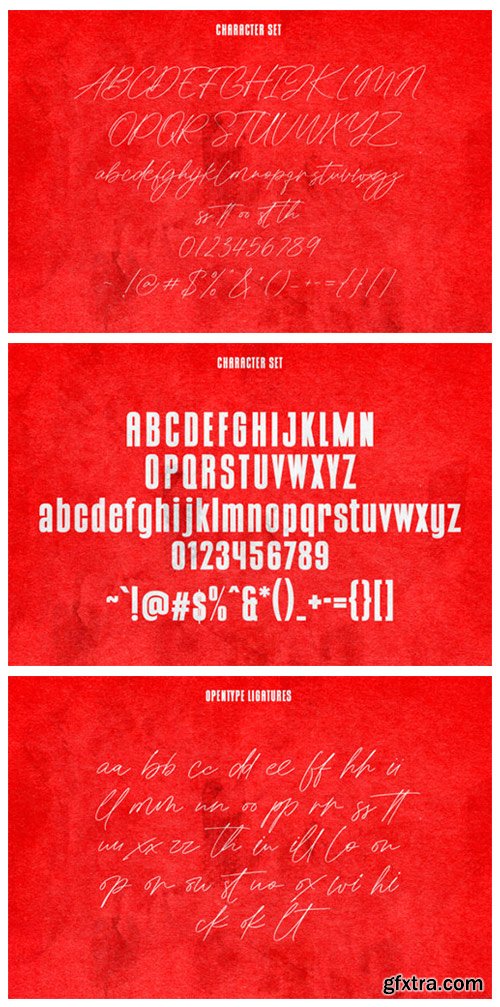
Offenders Club Duo Font
Offenders Club is a signature script and sans serif duo font. The two fonts go incredibly well together, as well as apart. This font is good for logo design, Social media, Movie Titles, Books Titles, short text even long text. Make stunning work with Offenders Club font!
Svarga Font
Svarga is a classy and elegant serif font. It is both modern and nostalgic, and it works great for logos, magazines, and social media. This font was created for designers who need a touch of elegance, style, class, and modernity in their designs.
Taillor Amillate Font
Taillor Amillate is a beautiful script font, suitable for any projects such as logos, branding projects, homeware designs, product packaging, mugs, quotes, posters, shopping bags, t-shirts, book covers, name cards, invitation cards, greeting cards, labels, photography, watermark, special events, and all your other lovely projects that need a beautiful script taste. This font is PUA encoded, which means you can access all of the glyphs and swashes with ease!
Lostya Font
Lostya is a modern serif font that embodies elegance and charm in every character. It is perfect for luxury logos, branding, classy editorial designs, women’s magazines, cosmetic brand, promotional designs, the fashion industry, and more.
Joan Hull Font
Joan Hull is a modern and exquisite script font. A collection of letters and numbers suitable for your projects. Use it for logotypes, branding designs, logo designs, digital lettering arts, t-shirt/apparel, posters, magazines, signs, advertising, and so much more.
Chameleon Font
Chameleon is a stylish and fine serif font. It is PUA encoded which means you can access all of the glyphs and swashes with ease! Add it confidently to your projects, and you will love the results.
Staryssa Font
Staryssa is a stunning calligraphy script font accented with beautiful stars. It was designed with printing and sublimation in mind and will look great with foiling on greeting cards, stickers, and anything you can imagine. This font is also packed with fantastic glyphs that will add even more wow factor to your designs. This font is PUA encoded, which means you can access all of the glyphs and swashes with ease!
Cute Crafts Font
Cute Crafts is a fun duo font (decorative and sans serif) inspired by colorful handcrafts style. The font works wonderfully for fashion, gifts, products packaging, signage, etc. Cute Crafts has modern and playful characters that will suit many industries and categories related to crafting, family, kids, etc.
Morgana Font
Morgana is a unique, modern & classic serif font that is a mix of old and new. Its soft curves mixed with high contrast glyphs lend themselves to both feminine and masculine qualities. Equipped with epic ligatures, this font is great in layout design for quotes or body copy. It is also great for logo designs.
Over Thinking Font
Over Thinking is a simple handwritten font with stunning characters. This font is crafted carefully in every single scratch, created to look as close to natural handwriting as possible so that it can create the perfect combination on each glyph. This awesome script is for anyone who needs elegance and style for their designs. Over Thinking Font will be awesome for professional photography, wedding, engagement, branding, invitations, florist, hairstylist, makeup artist, event organizer, movie, music, festival, promotions, social media, etc.
Skull Eyes Font
Skull Eyes is a modern display font. This typeset is perfect for brand logo, invitations, greeting card, or even any kind of project. With multilingual features and style variations, this typeface would further enhance the aesthetical aspect of your work.
Gladiator Arena Font
Gladiator Arena is a cool serif font with textured effects, inspired by the ancient roman fighting: gladiator. It has a bold and sharp edge making it perfect for titles on books and other written works, markings on tourist attractions, and those requiring a different serif style.
White Black Font
White Black is a doodle sans serif font with simplicity and a unique style. It is great for business cards, logos, product packaging, posters, t-shirt, and many other projects that require a fun and cute style. White Back will be awesome for many industries including fashion, food, games, kids, school, and more!
Surrendere Font
Surrendere is a modern and cool slab serif font. This typeset is perfect for brand logo, invitations, greeting card, or any kind of project. With multilingual features and style variations, this typeface would further enhance the aesthetical aspect of your work. This font is PUA encoded, which means you can access all of the glyphs and swashes with ease!
Somelove Font
Somelove is a free flowing handwritten font. This adaptable font will look great on a variety of design ideas. Somelove is PUA encoded which means you can access all glyphs and swashes with ease.